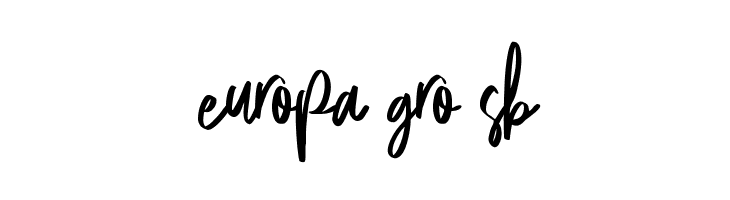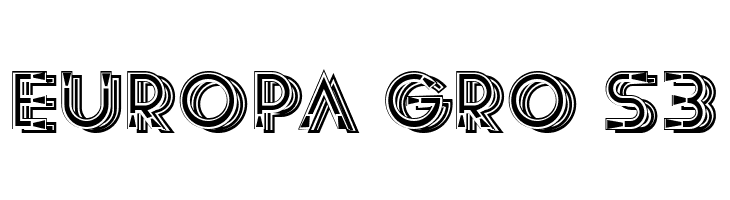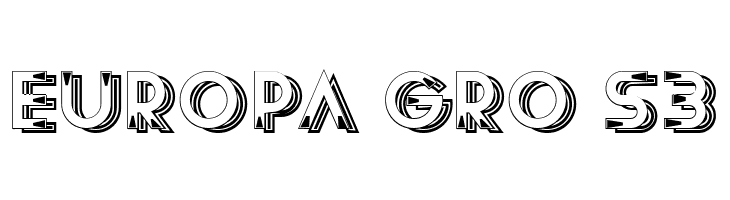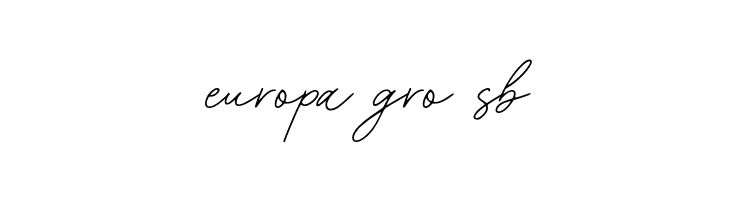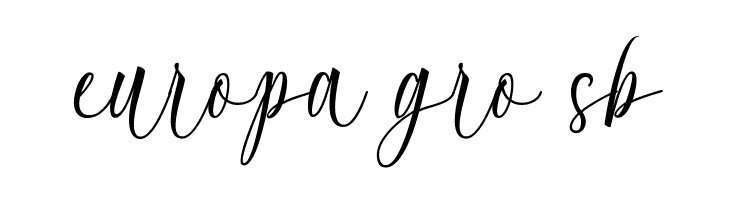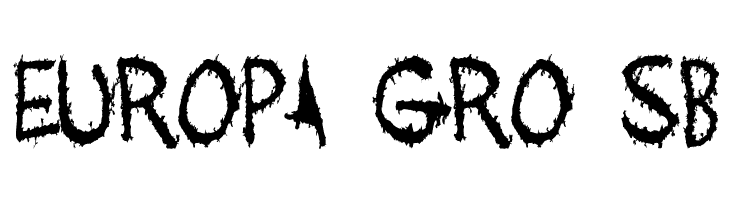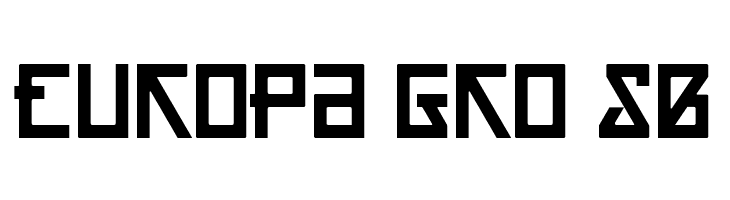
A delicate, handwritten script font with elegant, flowing strokes.
A modern, elegant handwritten script with fluid, graceful strokes.
A dynamic and expressive handwritten font with fluid, flowing letterforms.
A bold, textured font with a rugged, hand-drawn appearance.
A textured, distressed font with a chaotic, edgy style.
A modern, elegant script font with flowing lines and graceful swashes.
A bold, geometric, and decorative font with a layered, filled design.
A bold, decorative font with a three-dimensional effect and geometric design.
A bold, angular font with a gothic, decorative style.